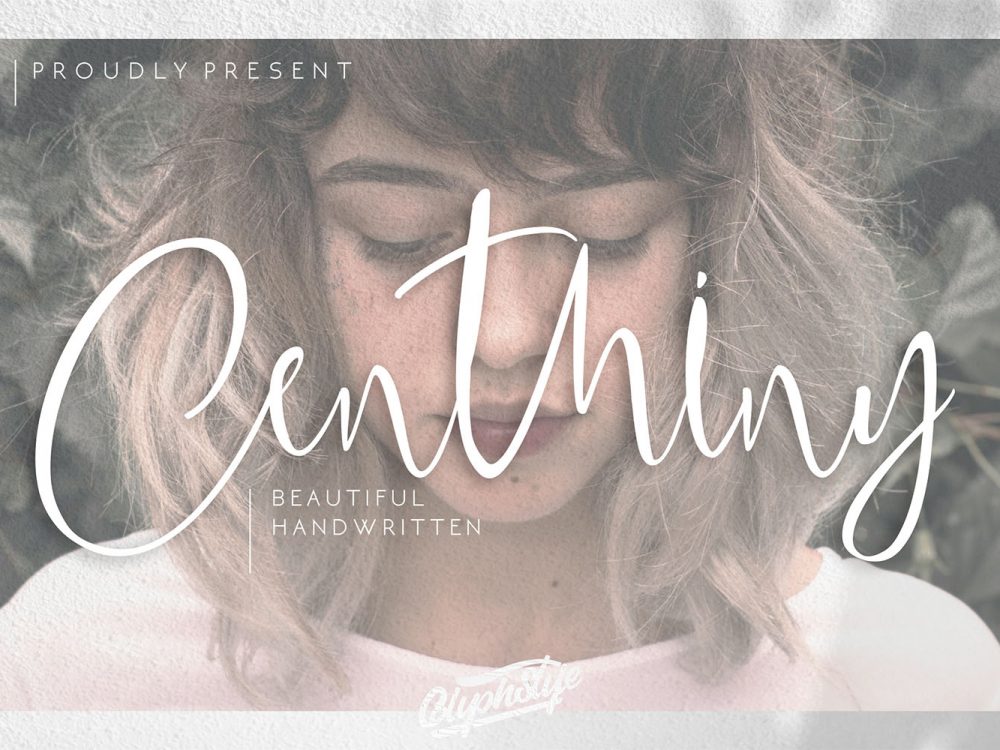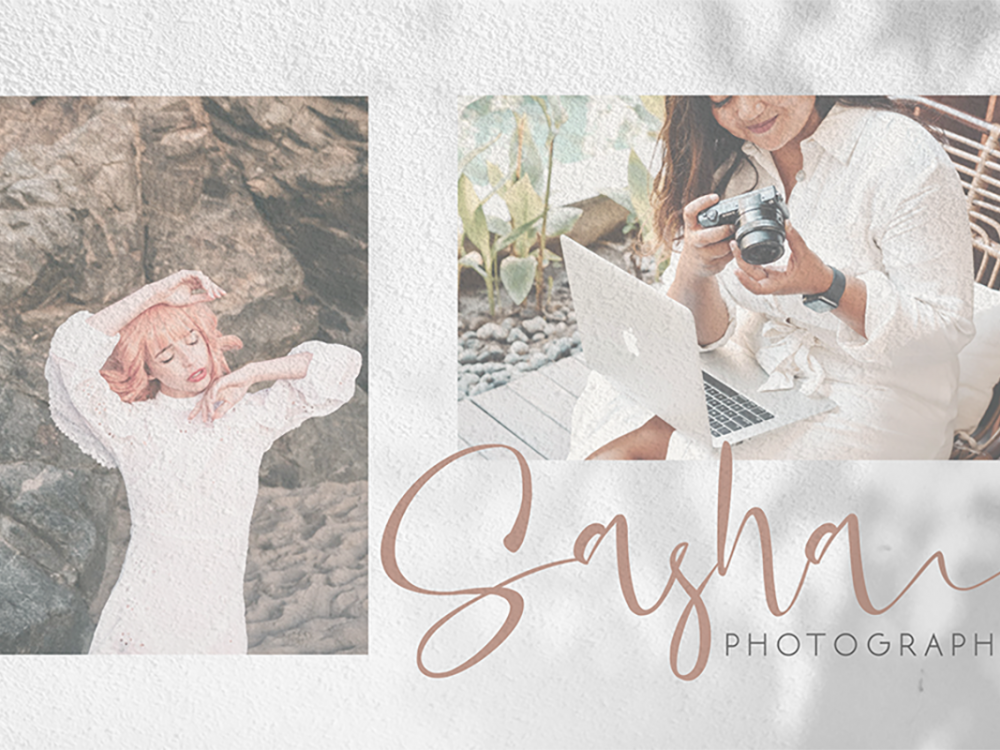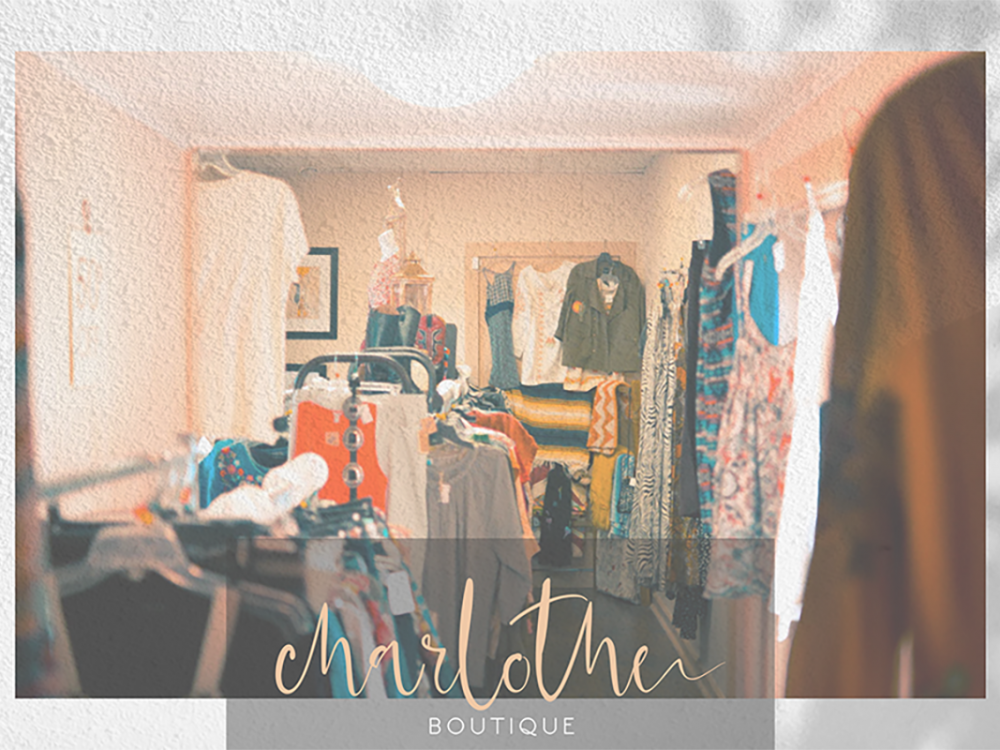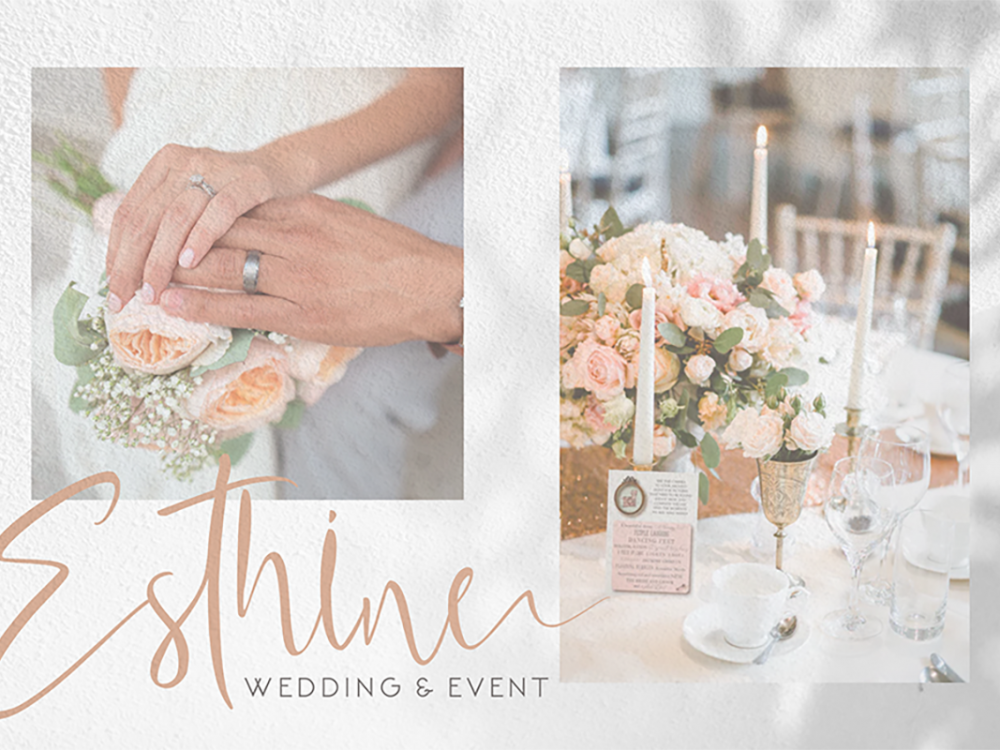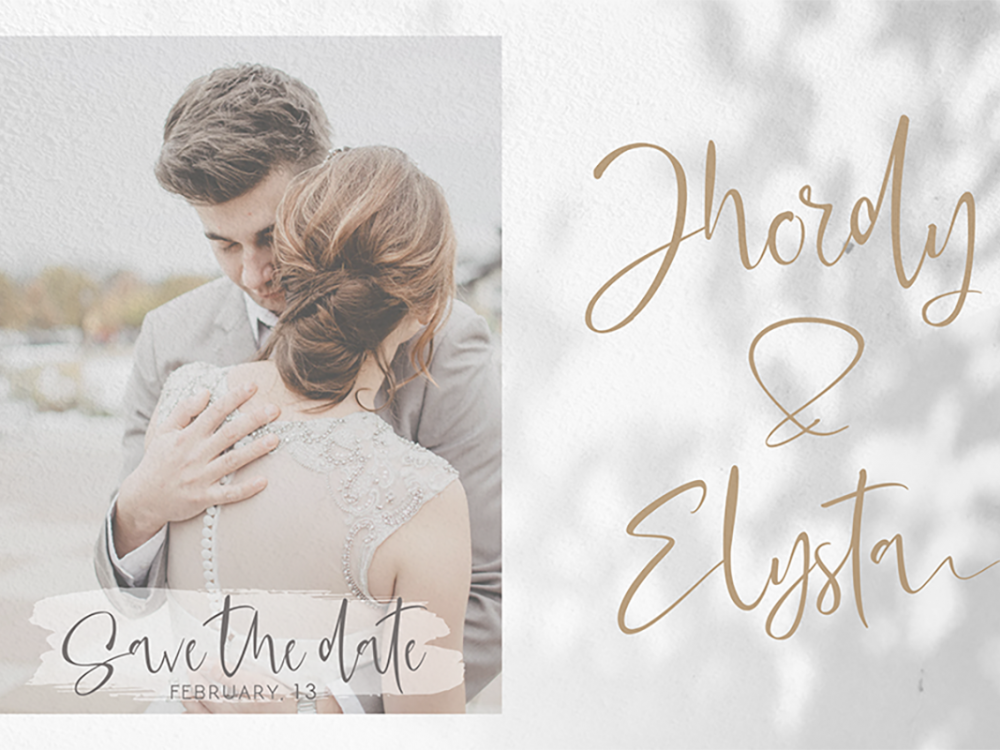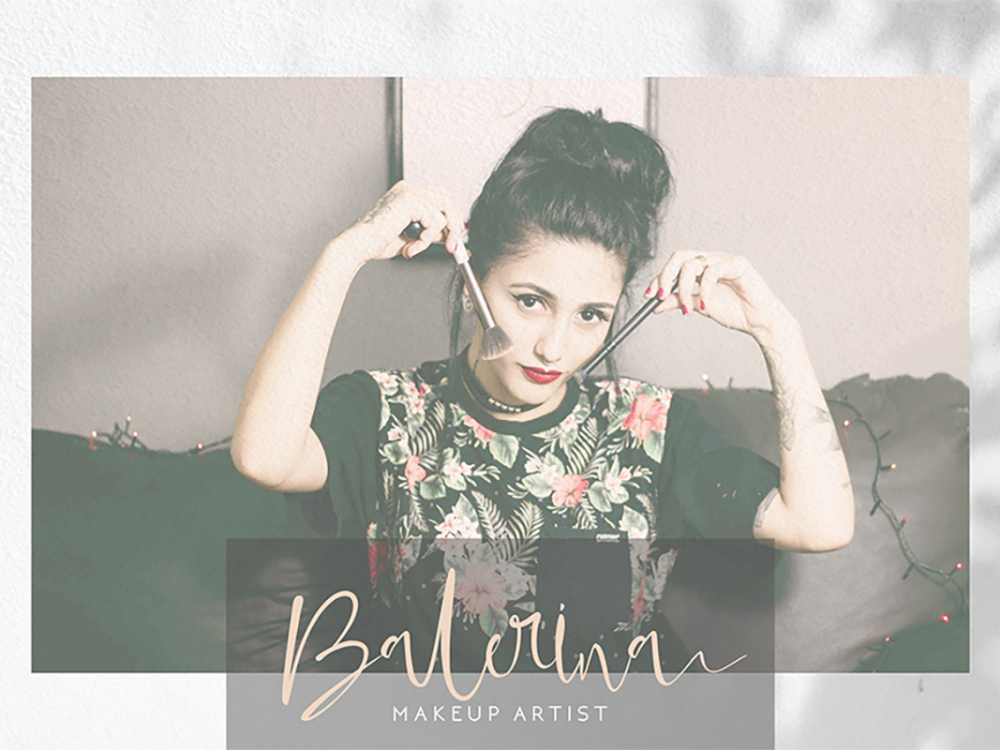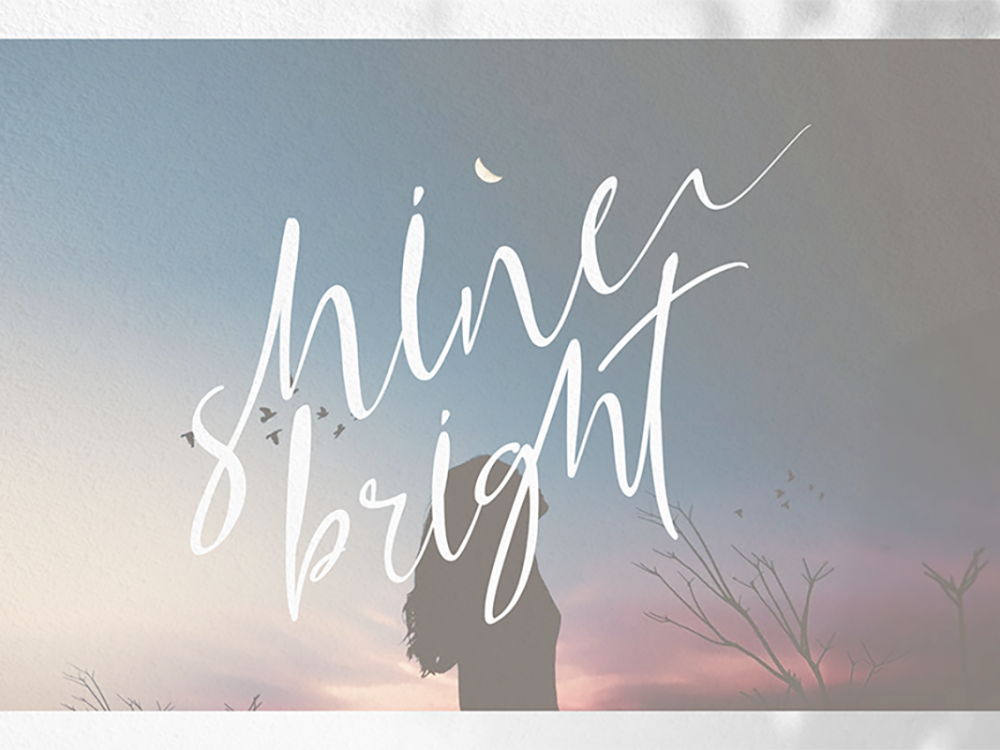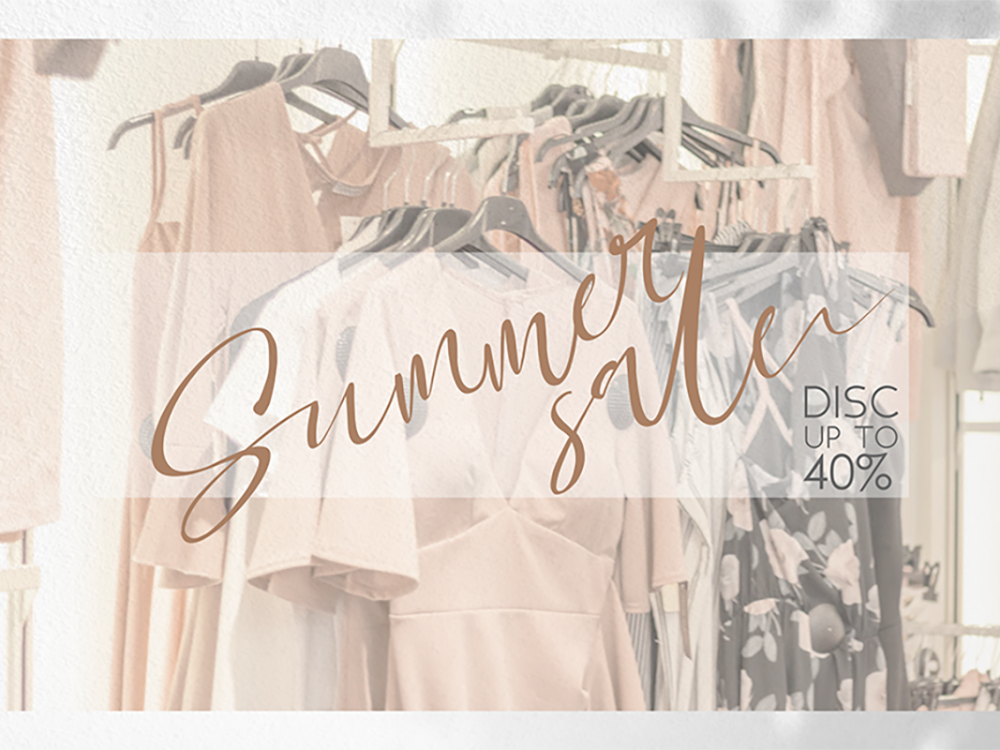
Centhiny Beautiful Handwritten Font
Centhiny Beautiful Handwritten Font is a beautiful, unusual modern font that features smooth lines and an elegant style. This font will give you the opportunity to create unique design projects that need a memorable script font. These can be posters, wedding invitations, cards, branding, flyers, prints, and more. If you wish to access more features and use them for commercial work please buy the full version.